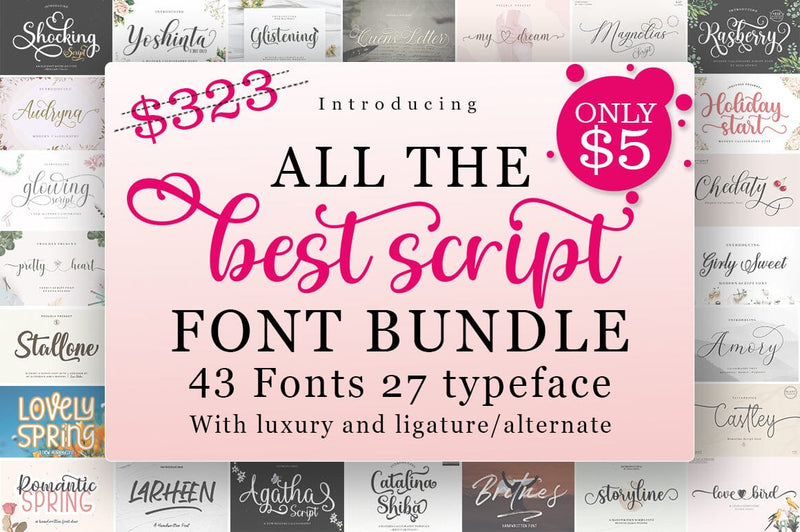
Best Script Font Bundle
Introducing,
Best Script Font Bundle, amazing designed typefaces is here to update your font library!
In this bundle, you'll find a combination of classic and modern styles to create the perfect lettering.
This professional resource is also powerful because each font has its own magical design. You can use it for almost anything like blog headers, posters, wedding elements, t-shirts, clothing, book covers, business cards, greeting cards, branding, invitations and quotes, and so on.
- Alternate
- Ligature
- Style Set